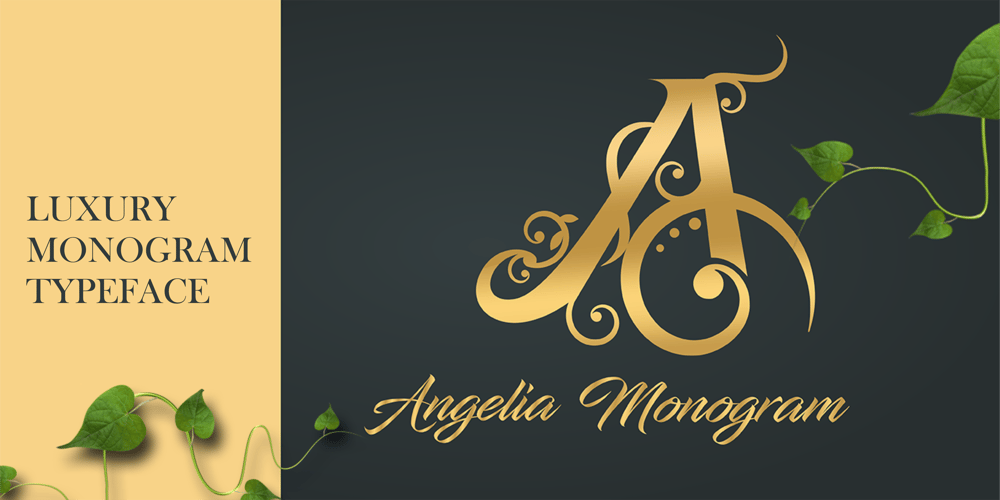
Angelia Monogram Font Family was designed by Sipanji and published by Sipanji21. Angelia Monogram contains 1 styles and family package options. introducing this Angelia Monogram Font. It’s a sweet and Luxury hand-drawn monogram wreath with leaves.Comes in 2 styles monogram, with and without decoration space for word on each letter inside. You can simply change the case between uppercase and lowercase to feel the difference. Whether you want to create a Luxury and powerful statement or simply add a touch of attitude to your designs, “Angelia Monogram” is the font for you.